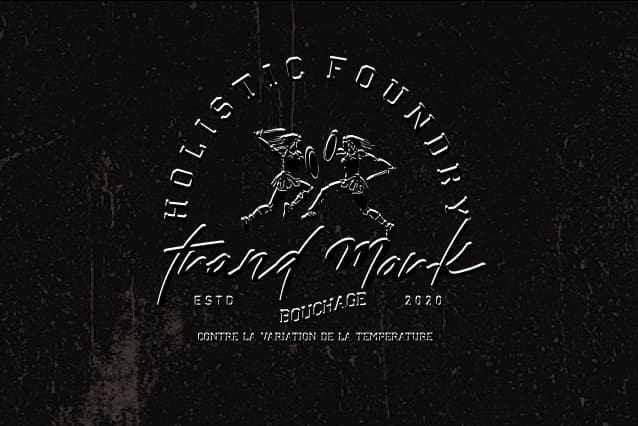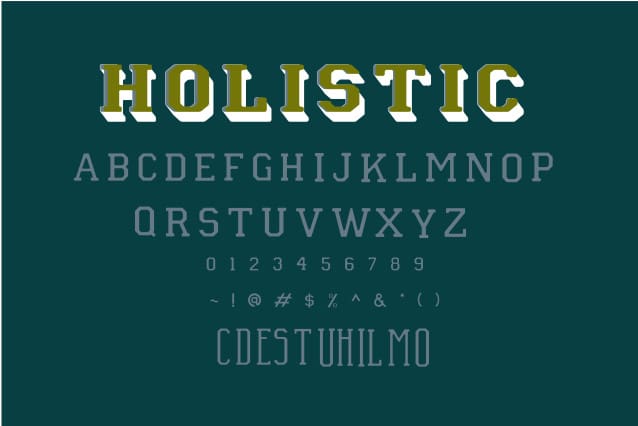
Well Of Strike – Holistic Font
Well Of Strike – Holistic Font means having uniform or consistent characteristics throughout. In any context, including design and typography, it refers to the similarity and harmony of the elements present.